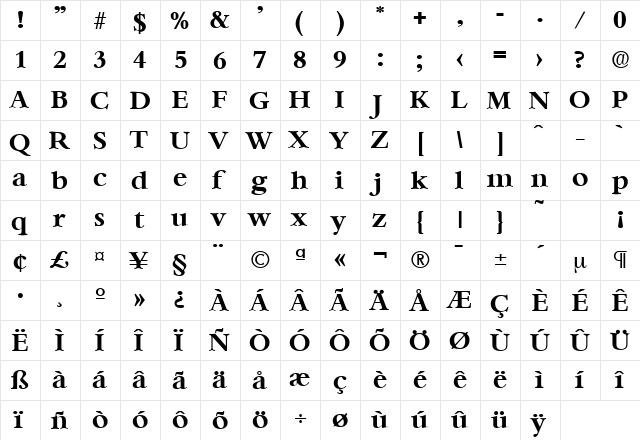
Bernstein-Serial Bold
Design Context for Bernstein-Serial Typeface
Bernstein-Serial is a composed and adaptable typeface that performs quietly and consistently across a wide range of design contexts. The heavy weight commands attention and anchors typographic hierarchies.